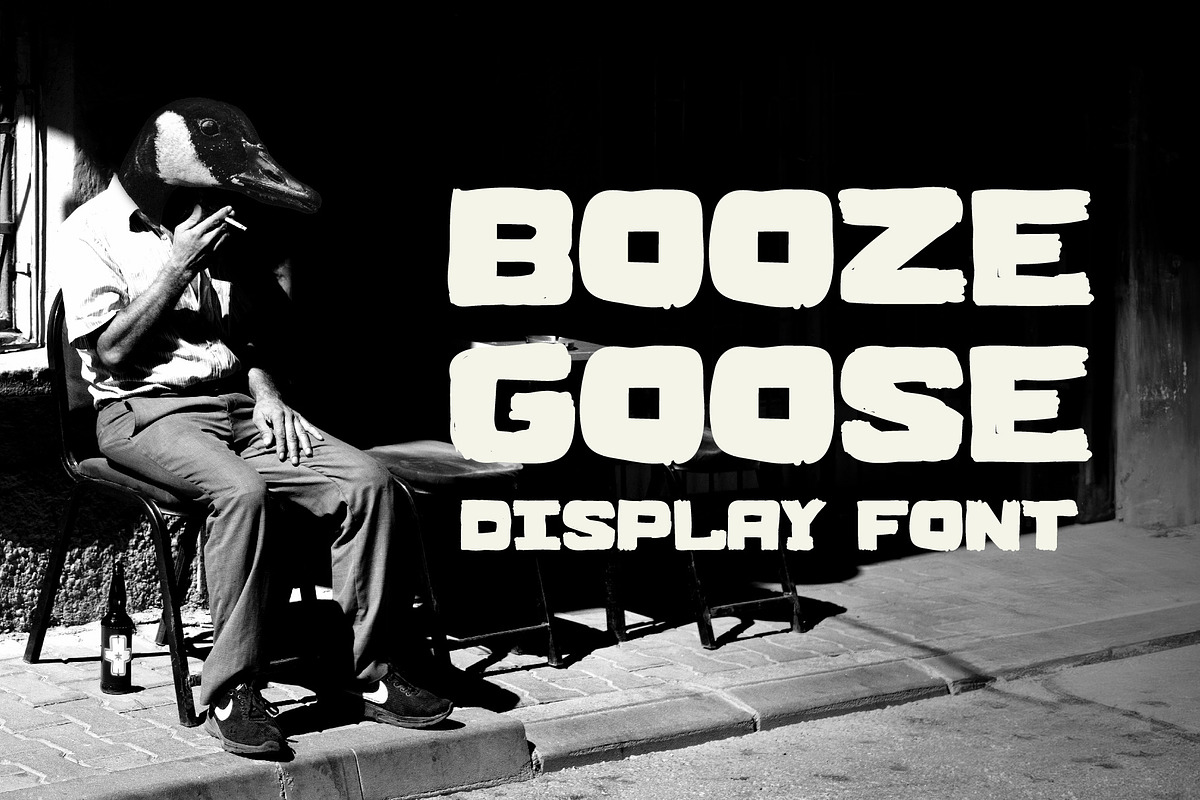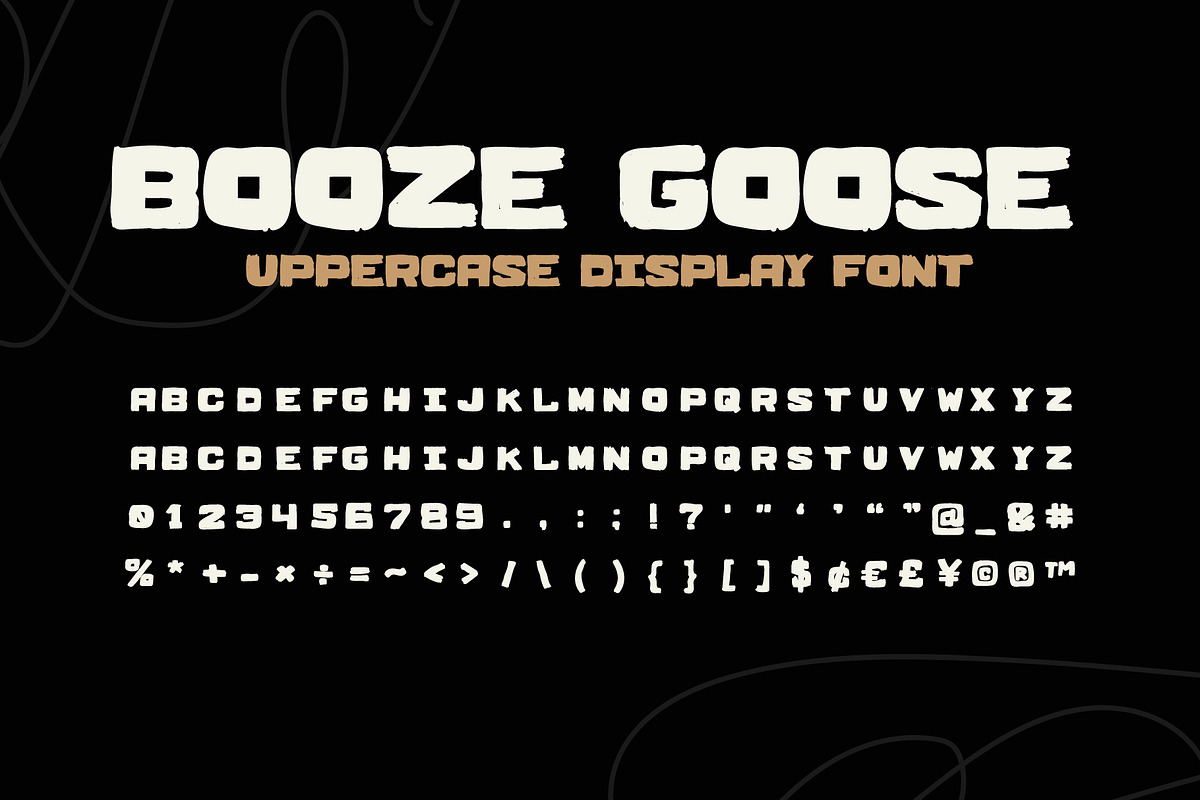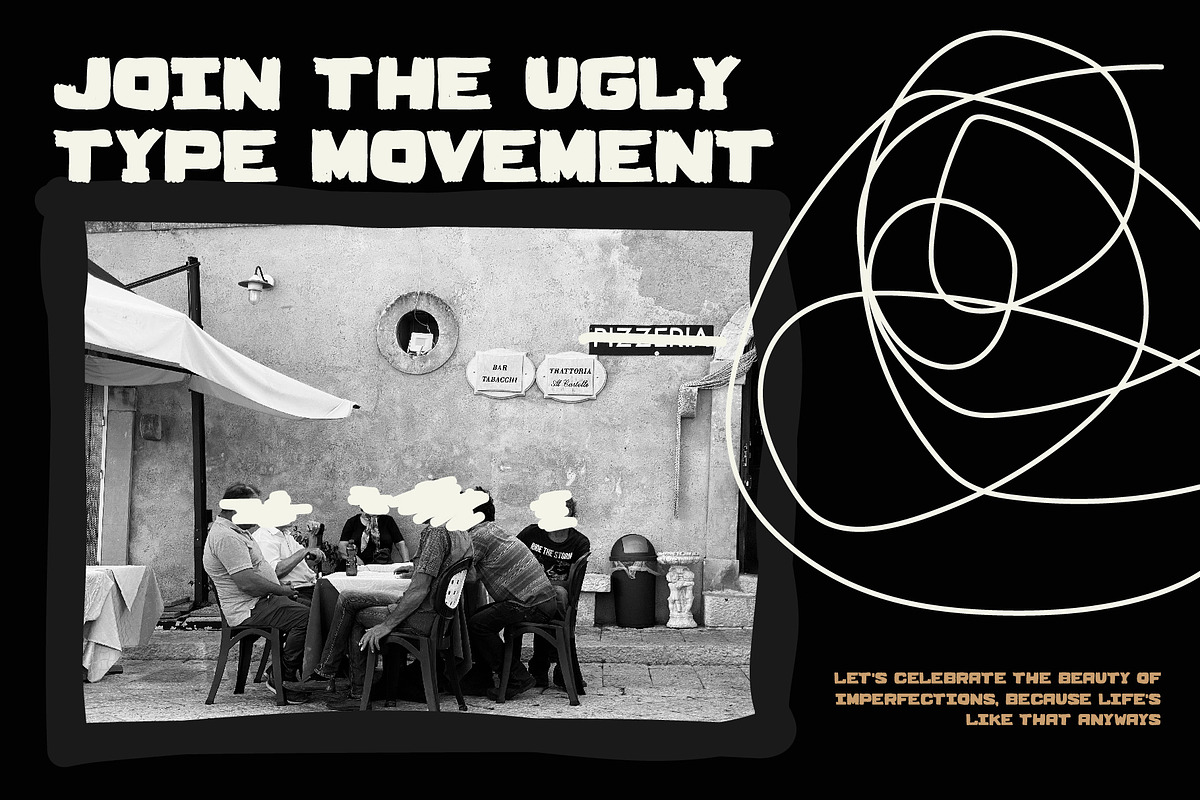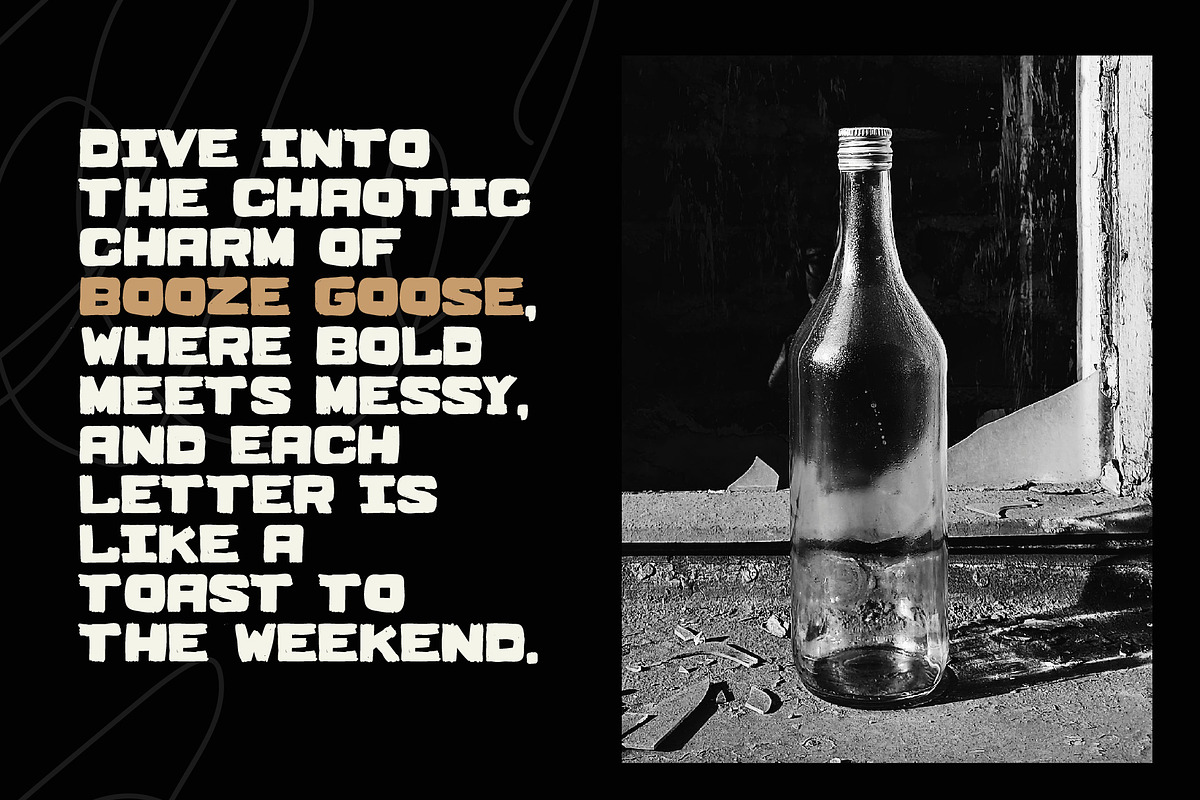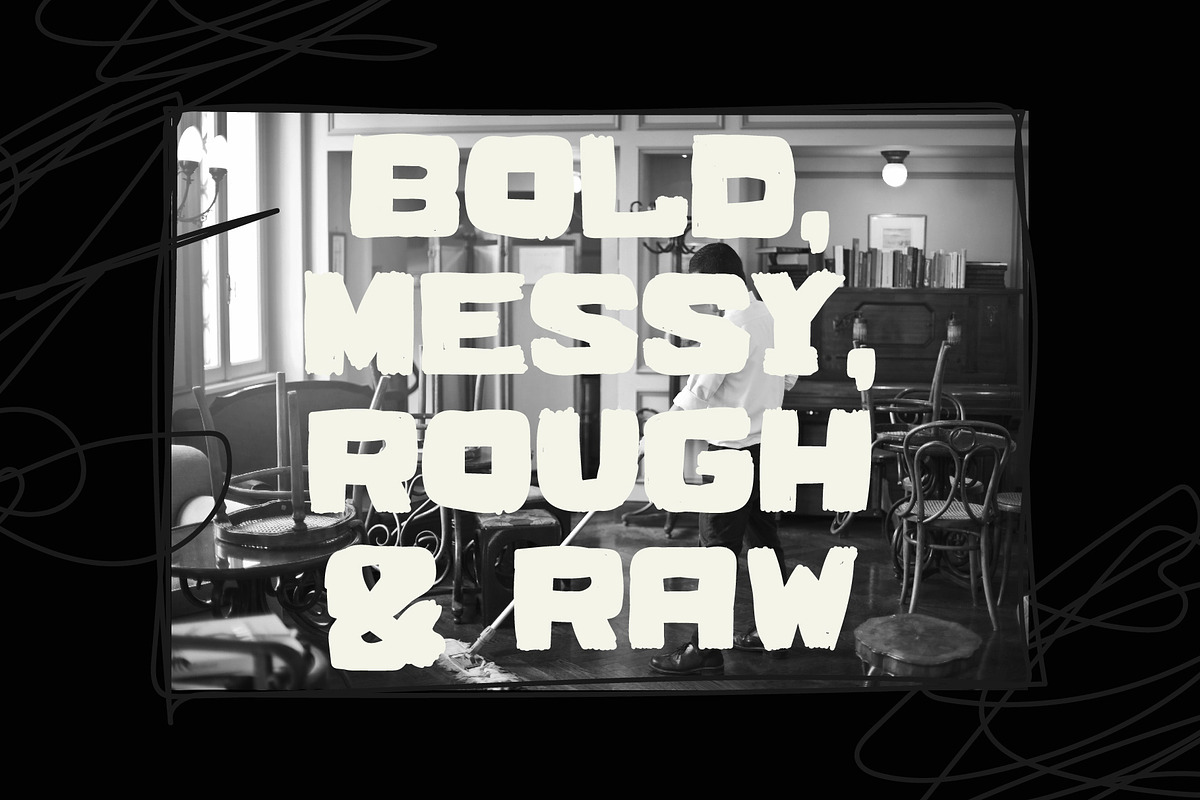
BOOZE GOOSE MESSY DISPLAY FONT
BOOZE GOOSE font is true, messy, strong and rough handwritten display font for your next project. It isn't meant to be perfect - but in his own way, it is! It is so random and rugged, but somehow magically it works. Could be used in any of your projects where you want to use a a strong and unique style type that looks authentic.
It is an uppercase font with some numerals and symbols included (see photos) The font included is in both .otf and .ttf file formats